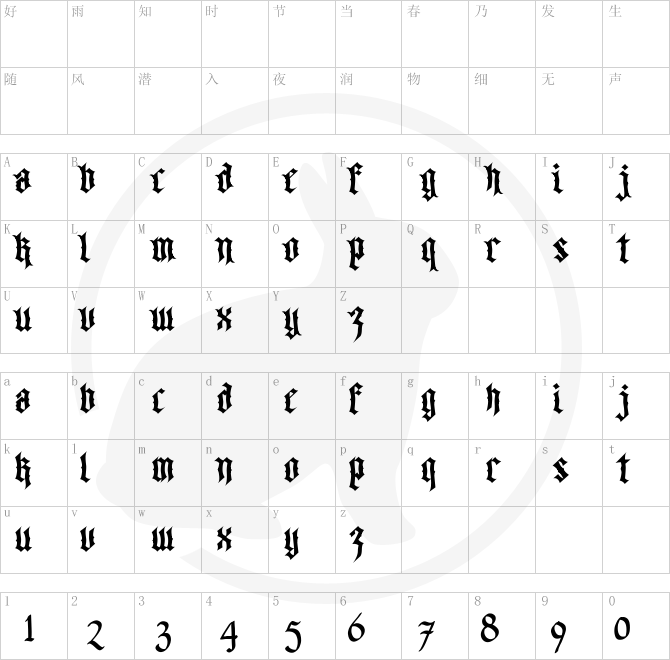
- Font Name:Walk Da Walk Three
Walk-Da-Walk-Three.ttf is a very beautiful artistic font, Walk-Da-Walk-Three.ttf is widely used in the design and printing of various books and pictures,Walk-Da-Walk-Three.ttf has a strong visual impact,Walk-Da-Walk-Three.ttf is a commonly used font in newspapers, magazines and books, and is used in posters, e-commerce Poster design, store design, logo design, font design and other fields.Walk-Da-Walk-Three.